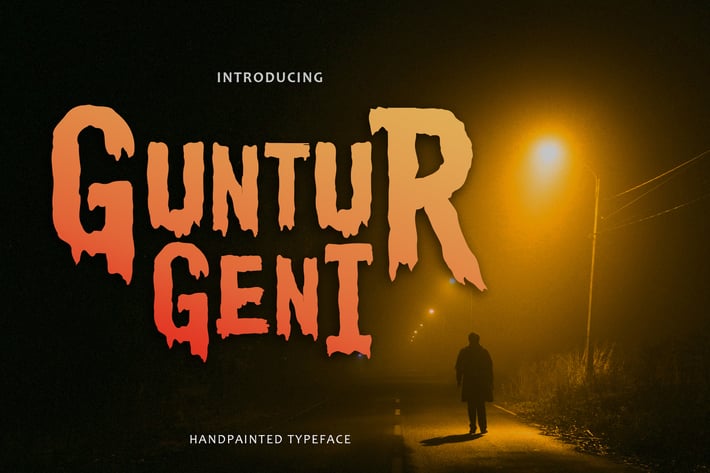
Guntur Geni - Handpainted Typeface
Guntur Geniis perfect to use for Logotype, Letterhead, Poster, Apparel Design, Label and etc.
The alternative characters were divided into several features such as Stylistic Alternates and Ligature.